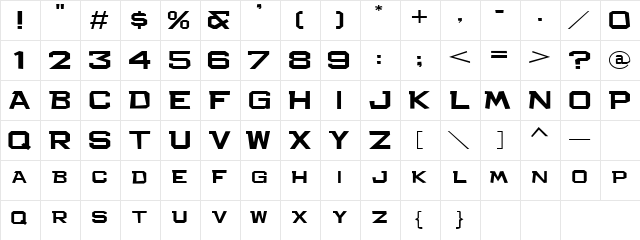
Bachelor Pad Expended JL Regular Font Preview
Bachelor Pad Expended JL Regular
Bachelor Pad Expended JL Regular Font Details
| Foundry | Jeff's Fonts & Dingbats |
| Designer | Jeffrey N. Levine |
Design Context for Bachelor Pad Expended JL Typeface
Bachelor Pad Expended JL is a composed and adaptable typeface that performs quietly and consistently across a wide range of design contexts.